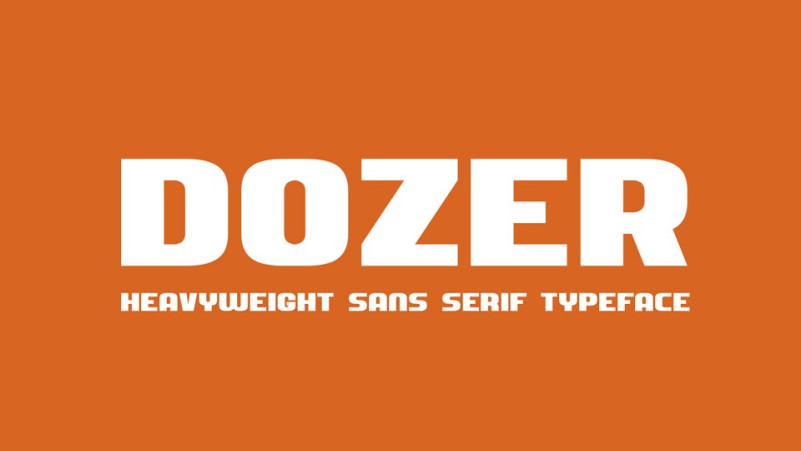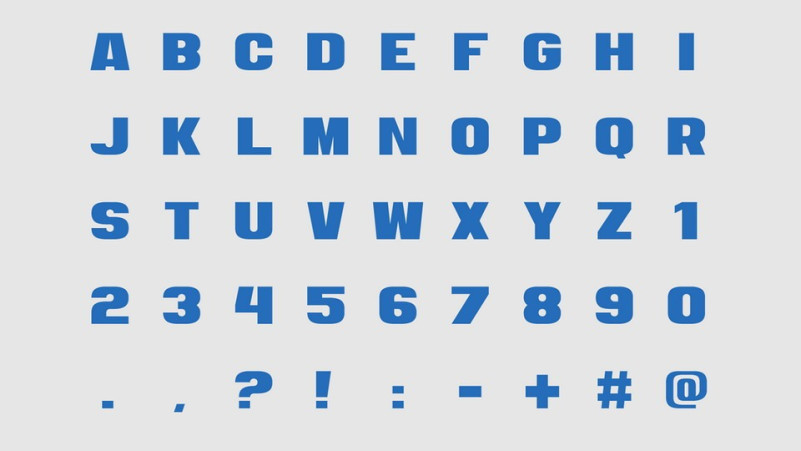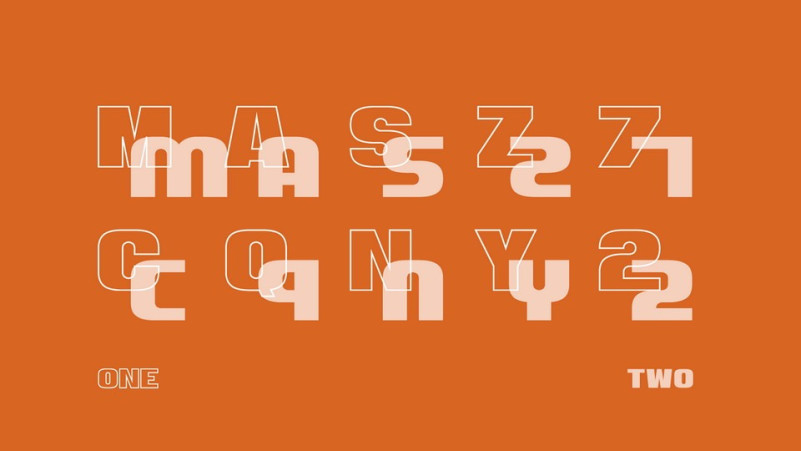
Dozer Sans Serif Font
Dozer Sans Serif Font is a heavyweight sans serif display typeface. It comes with two styles – Strong and Smooth, contains all caps letters, numbers and punctuation. Dozer perfectly fits for loud headlines, posters, banners, logos and branding and other display designs.